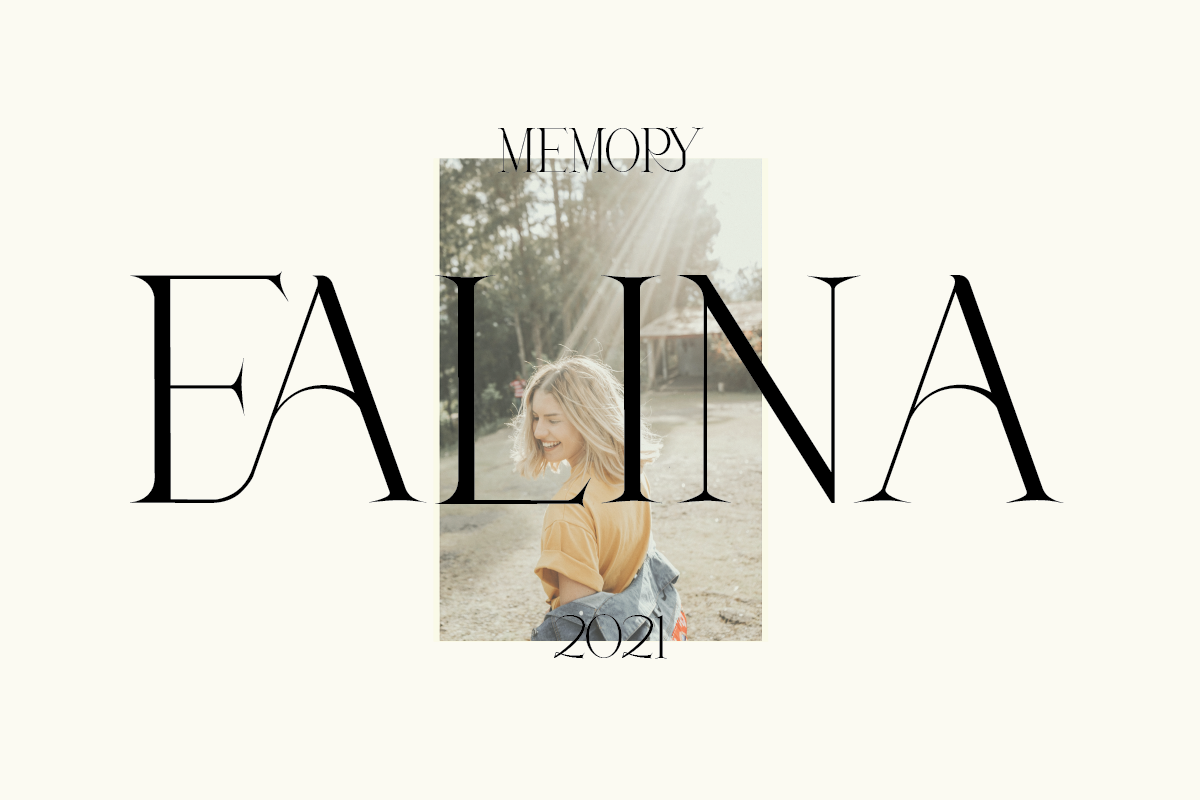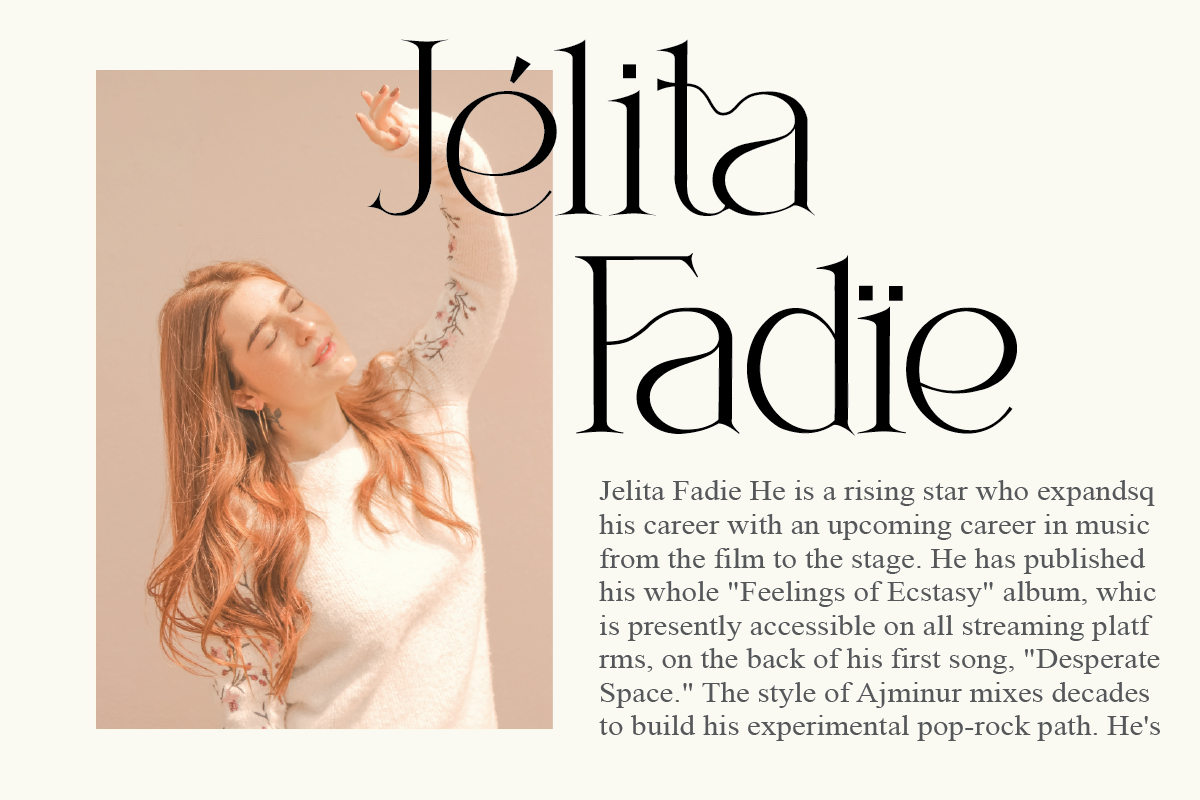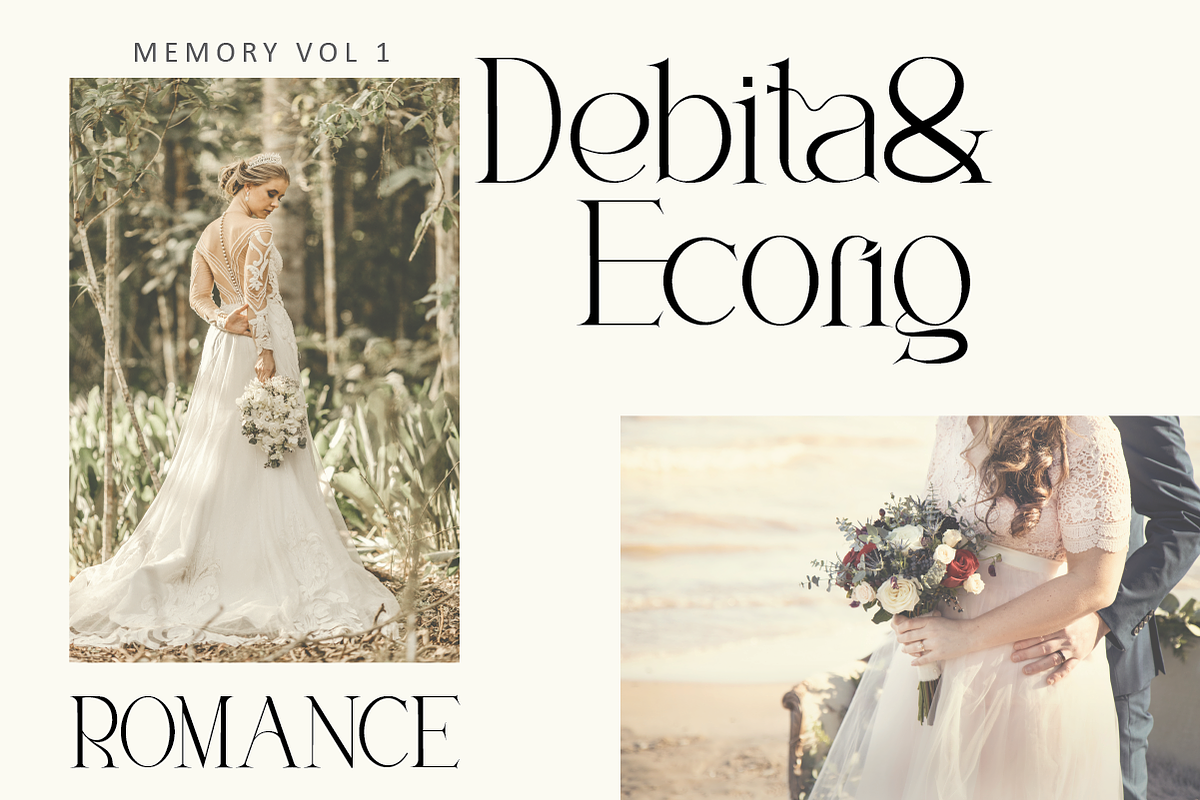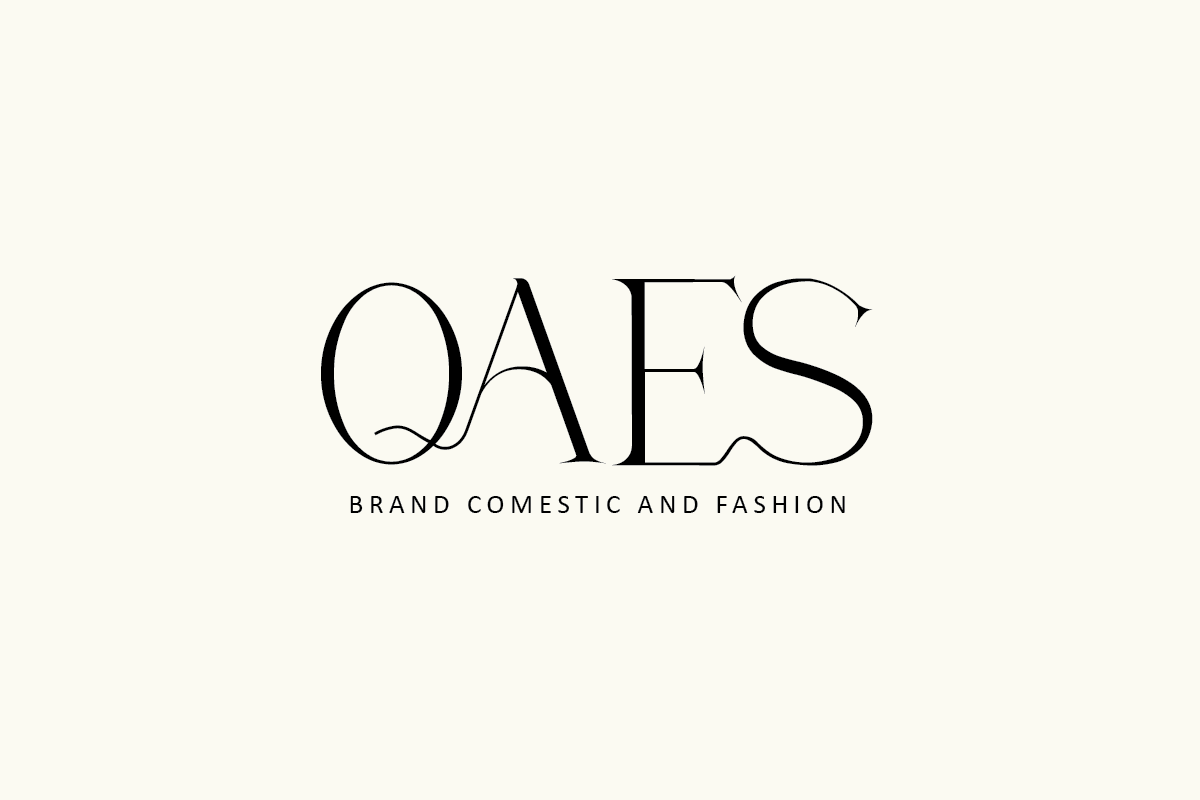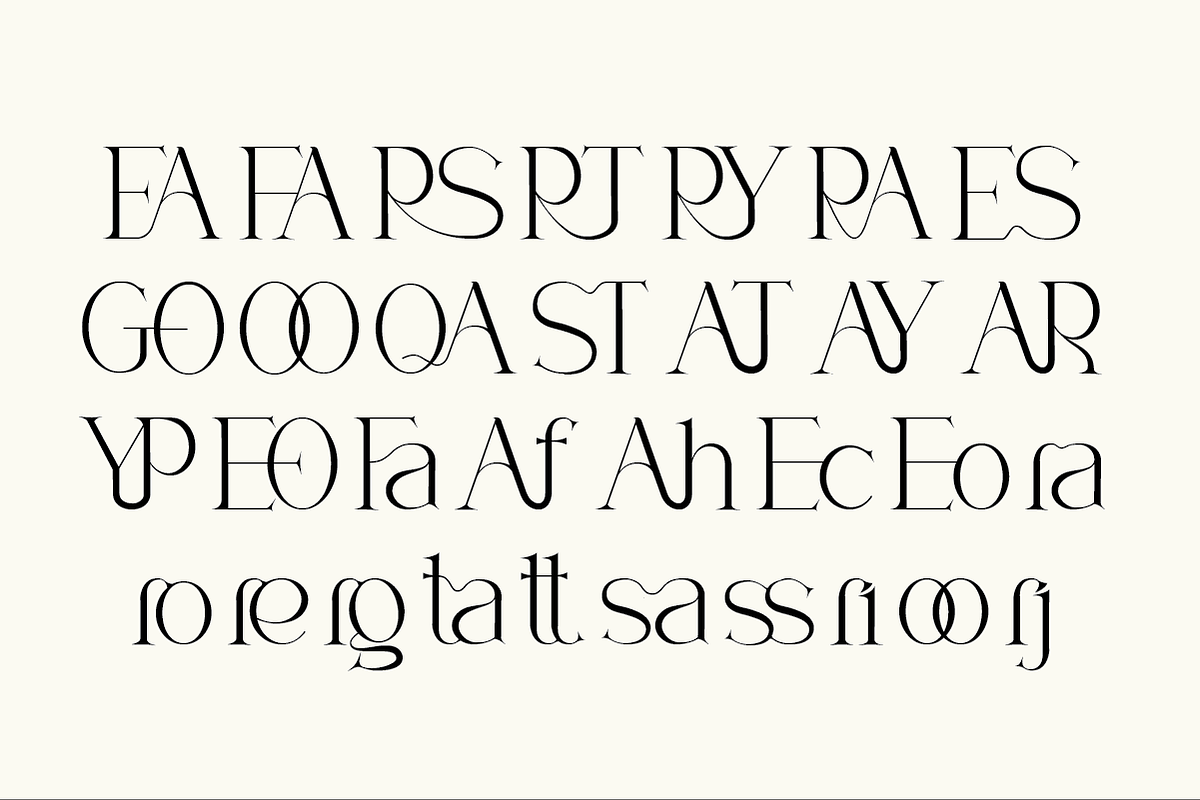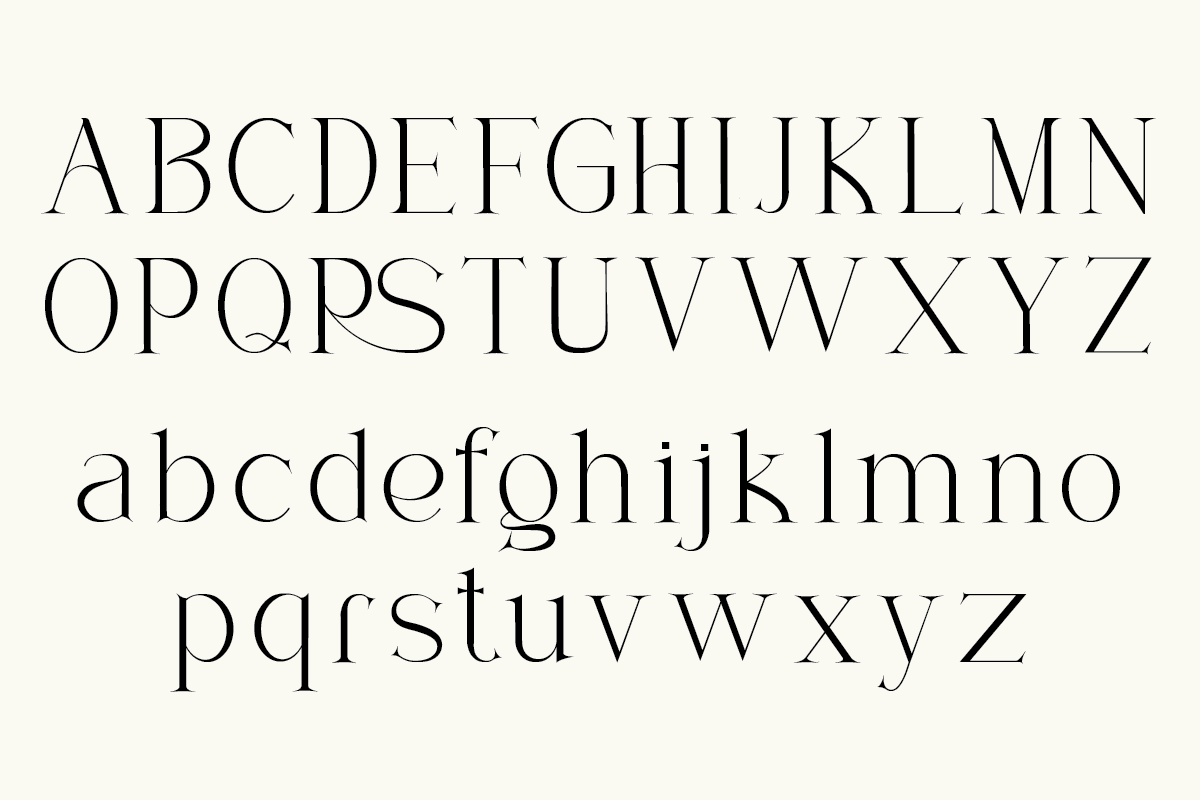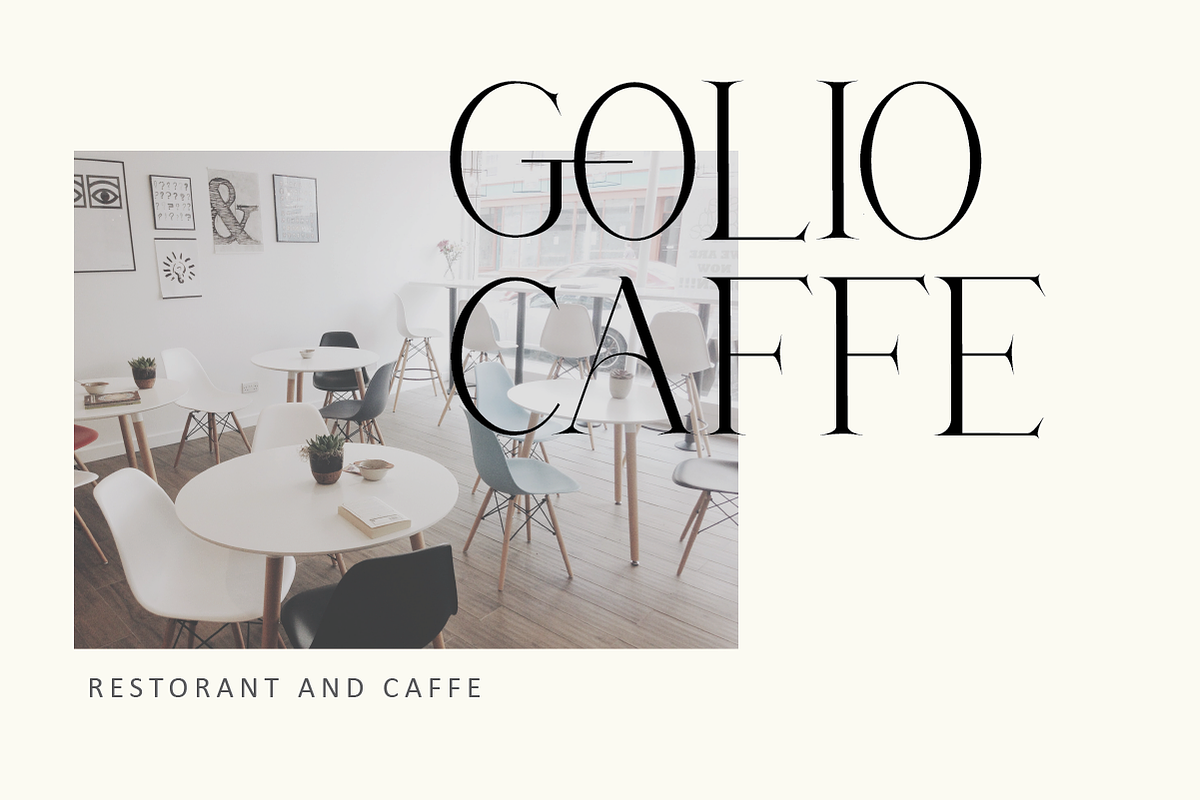
Faesa Breages
Faesa Breages Modern Classic serif typeface with beautiful ligatures, special glyphs, ornament and multilingual support. It's a very versatile font that works great in large and small sizes. Perfect for editorial projects, Logo design, Clothing Branding, product packaging, magazine headers, or simply as a stylish text overlay to any background image.